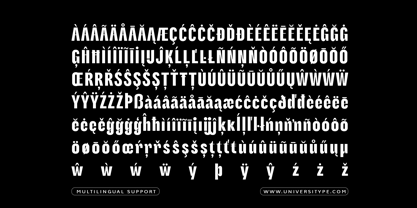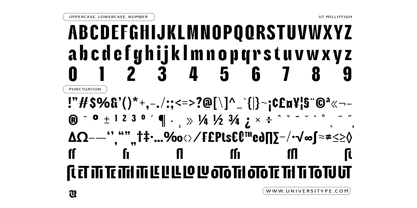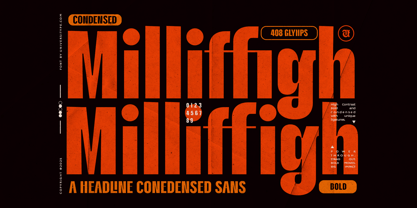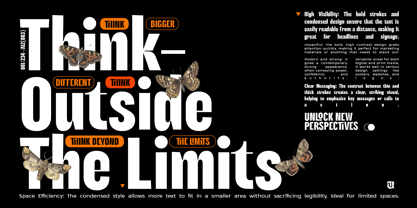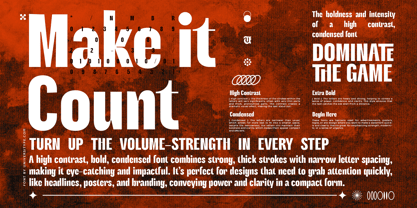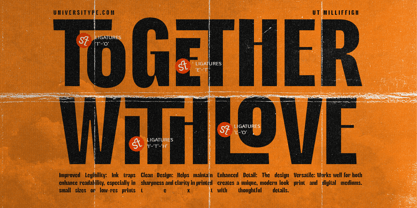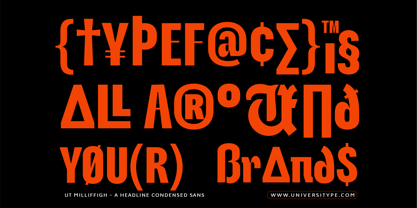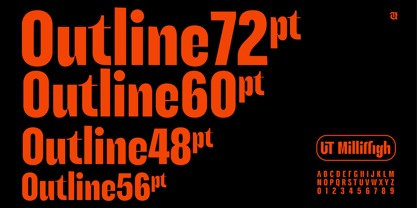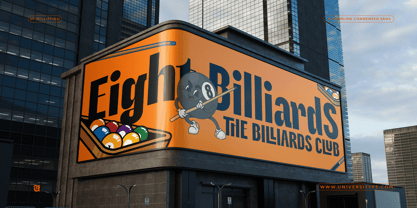
UT Milliffigh
by Universitype
The UT Milliffigh Font Family was designed by Muh. Aswar, Novan Arisandi and published by Universitype. UT Milliffigh contains 1 styles. More about this family
UT Milliffigh : A Typeface Engineered for Impact
UT Milliffigh is an answer to the modern designer’s crave for clarity and confidence. With razor-sharp contrast and a tightly condensed silhouette, this font refuses to blend in. Ideal for headlines, branding, and digital interfaces, UT Milliffigh serves drama without dropping readability, perfect for projects that demand to be seen and understood.
Key Characteristics:
• High-Contrast Boldness – Thick strokes paired with subtle refinements for a commanding visual impact.
• Condensed Form – Maximizes space without compromising readability, ensuring text remains bold and clear.
• Stylish Ligatures & Alternates – Custom-designed ligatures and alternate characters add a refined, dynamic touch.
• Versatile & Eye-Catching – Whether in all-caps or mixed case, Milliffigh’s letterforms demand attention.
Who It’s Made For
This typeface is designed for creatives who push boundaries. It’s a powerful tool for designers, brands, and visionaries looking for typography that exudes strength and personality. Whether you’re crafting an identity for a high-end fashion brand, a cutting-edge tech startup, or a bold editorial layout, this font adapts effortlessly to your vision.
UT Milliffigh is Perfect For :
• Branding & Logo Design: Make an unforgettable first impression with a typeface that exudes confidence.
• Luxury & Fashion Packaging: Elevate your designs with bold yet elegant typography.
• Editorial & Magazines: Perfect for high-impact headlines and standout layouts.
• Tech & Sportswear: A dynamic and powerful look that resonates with modern audiences.
• Advertising & Marketing: Amplify your message with typography that refuses to go unnoticed.
Designers: Muh. Aswar, Novan Arisandi
Foundry: Universitype